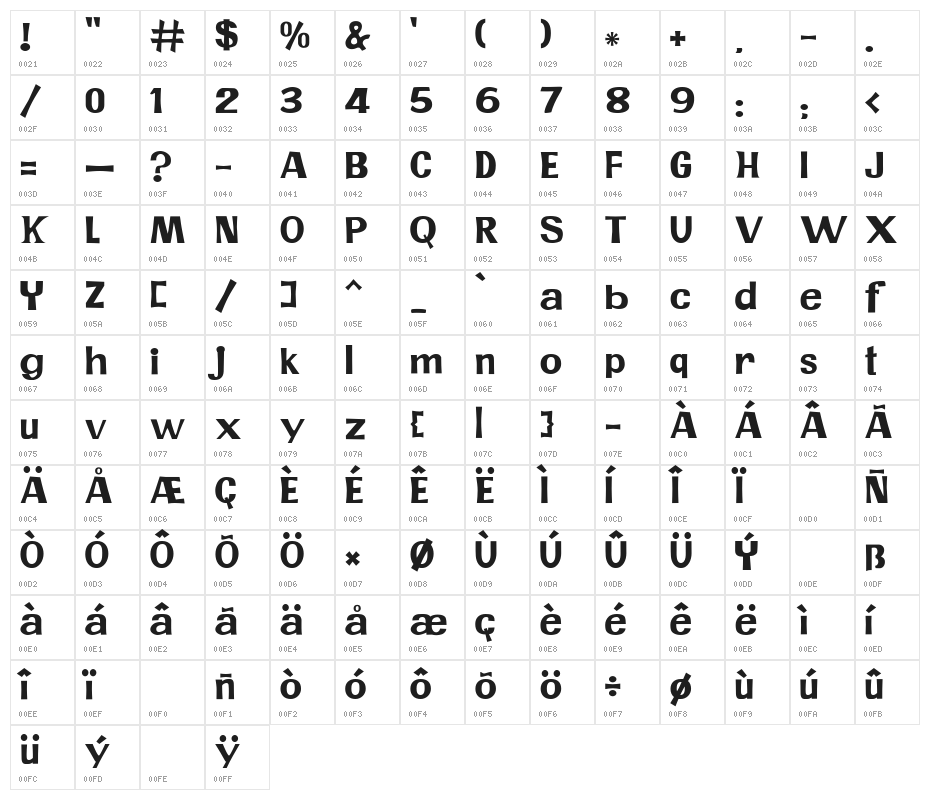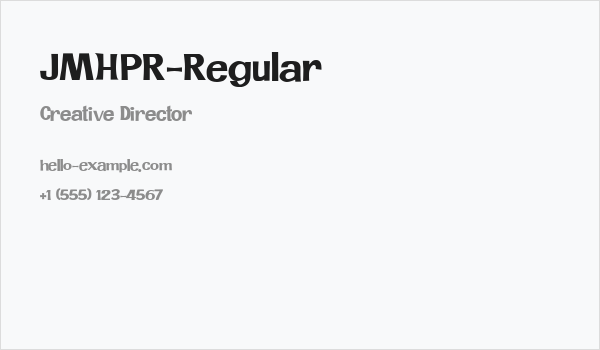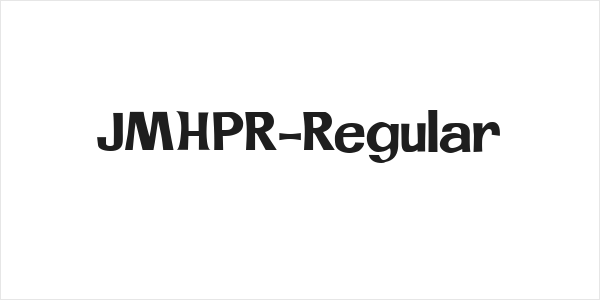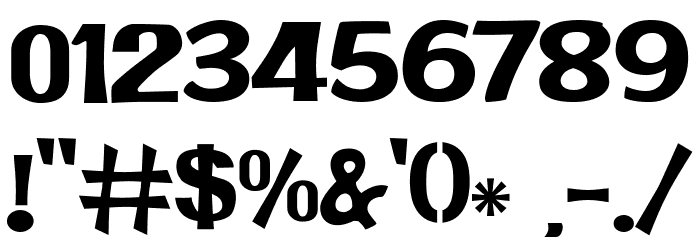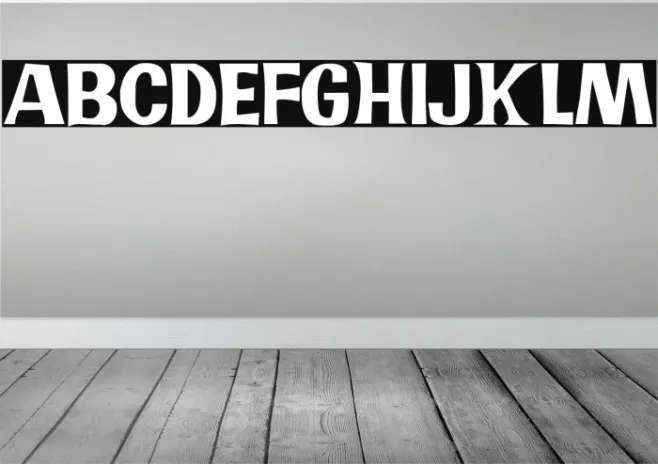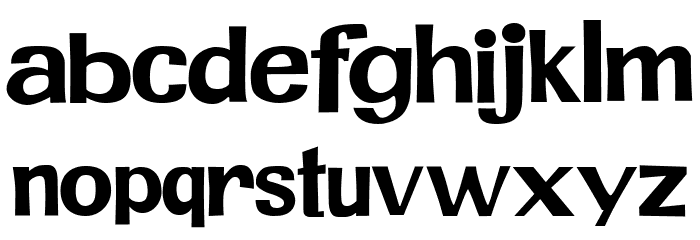
JMHPR-Regular Font
JMHPR-Regular Description
This font features a bold and dynamic style with a slightly condensed appearance. The uppercase letters have a strong presence with angular cuts and a playful twist, giving them a unique character. The lowercase letters maintain a consistent weight, providing a harmonious balance between the two cases. The numerals are robust and clear, making them highly legible. Special characters are designed with the same boldness, ensuring they stand out effectively. Overall, this font combines a modern aesthetic with a touch of whimsy, making it suitable for a variety of creative applications.
| Proposed Projects | Ideal for branding, posters, headlines, and any project requiring a bold, eye-catching typeface. |